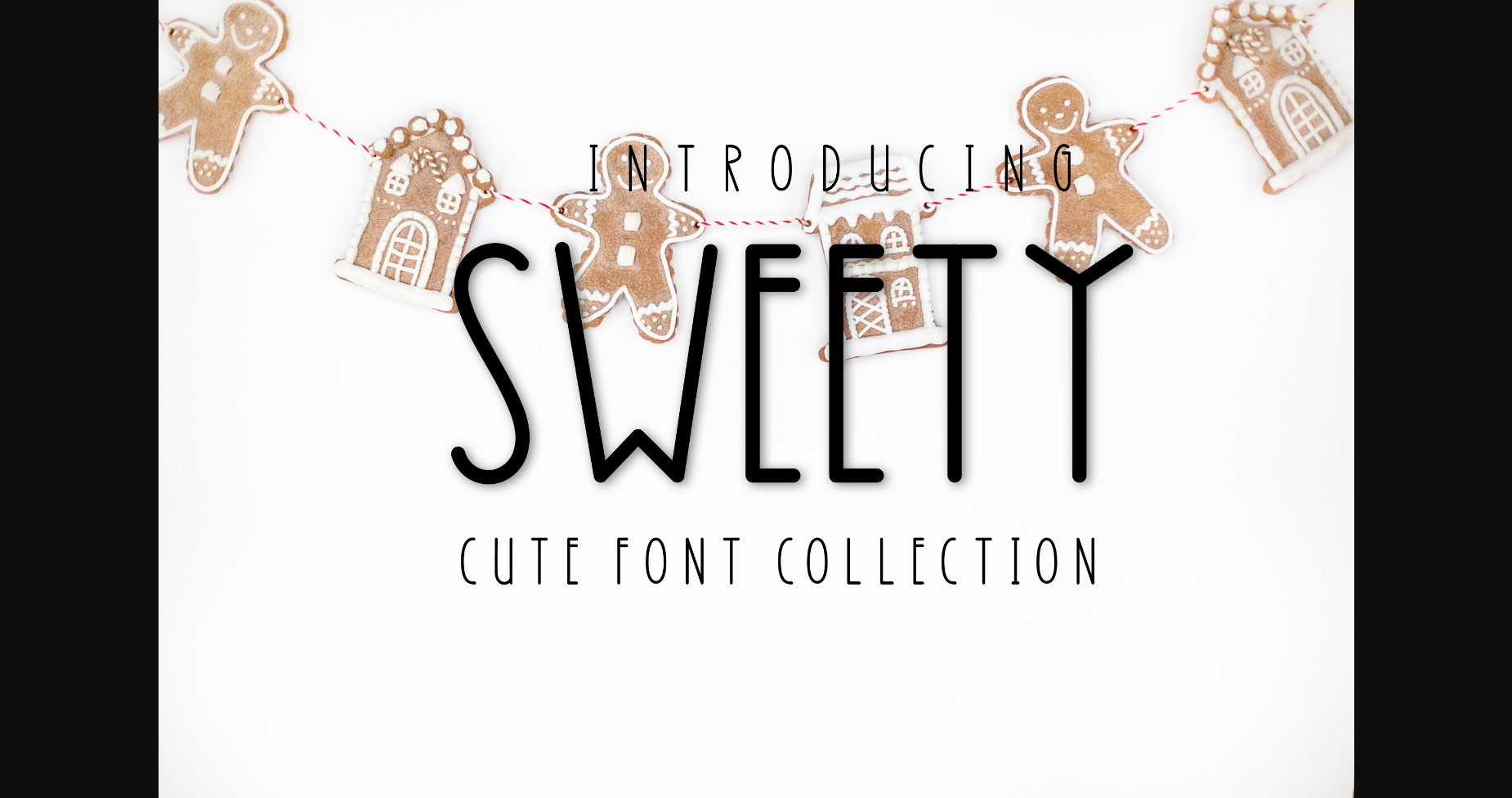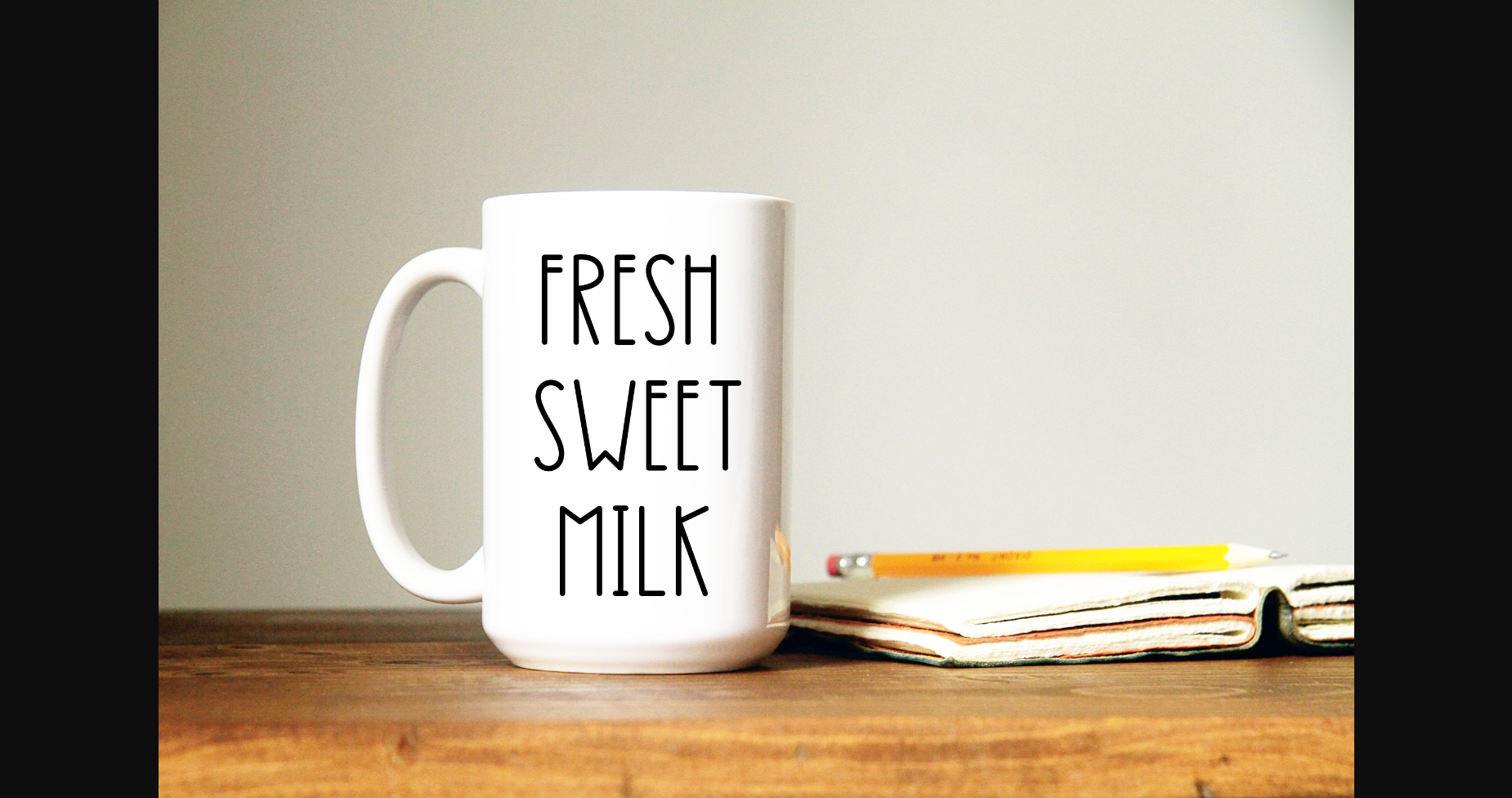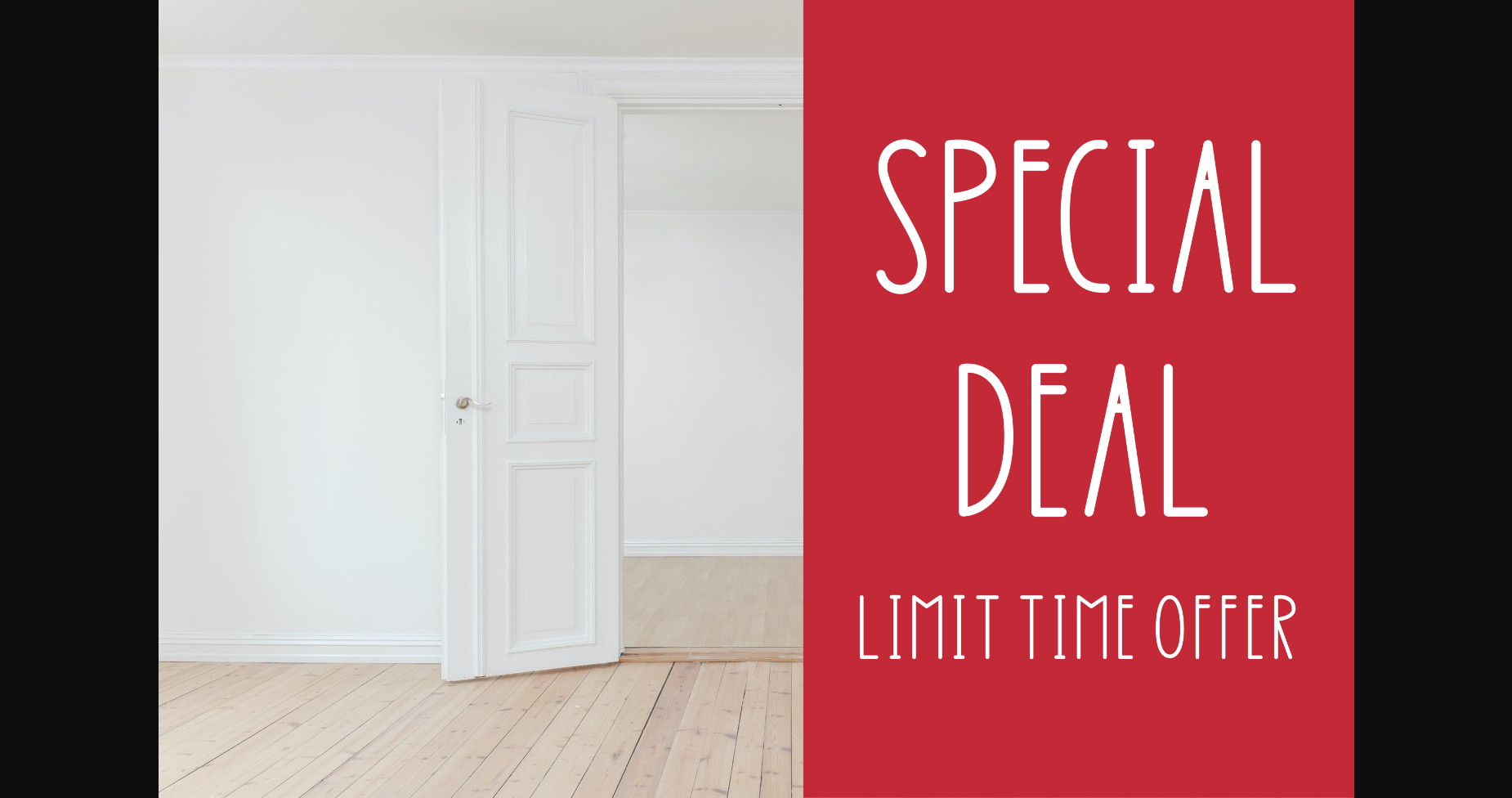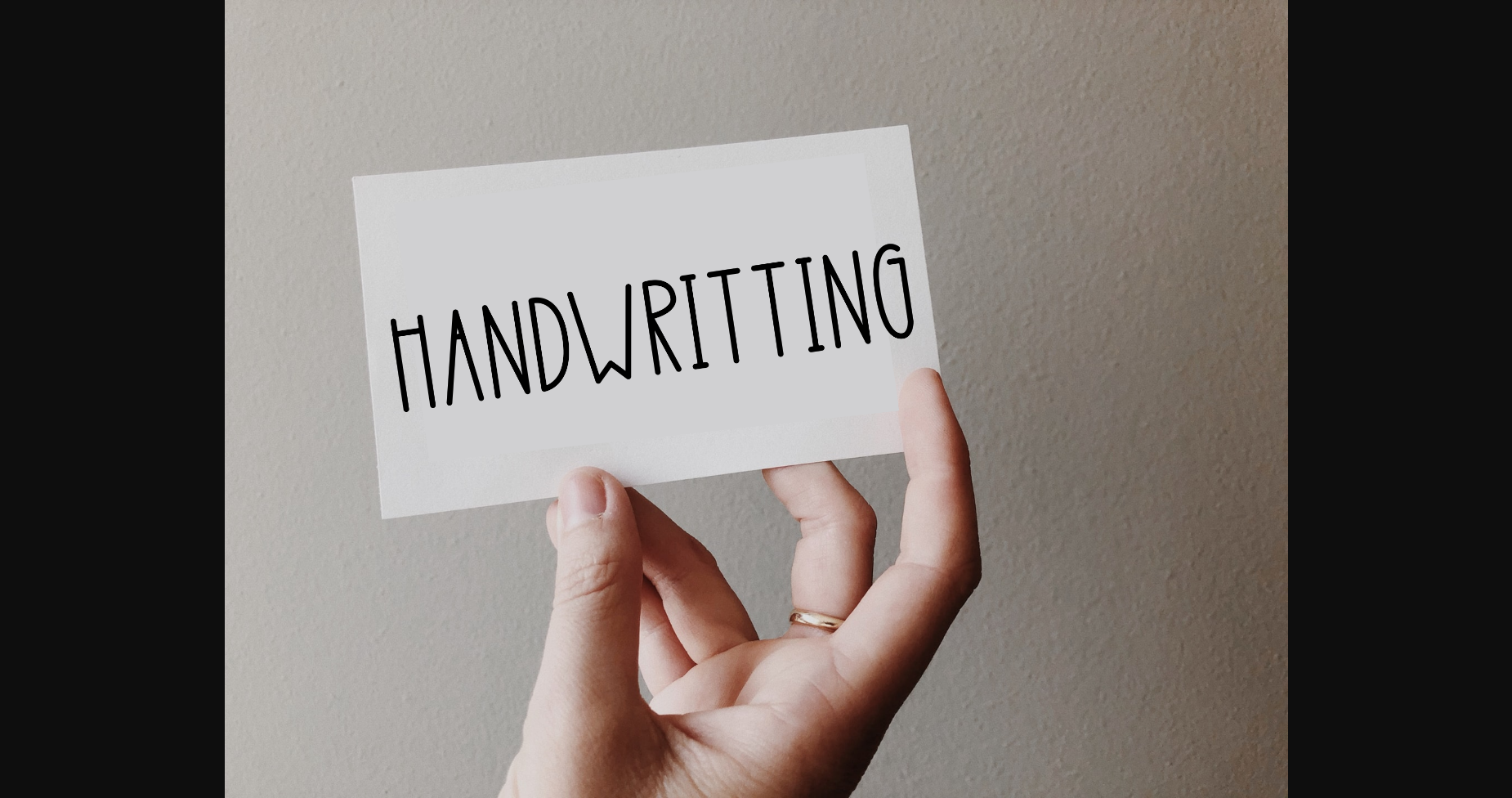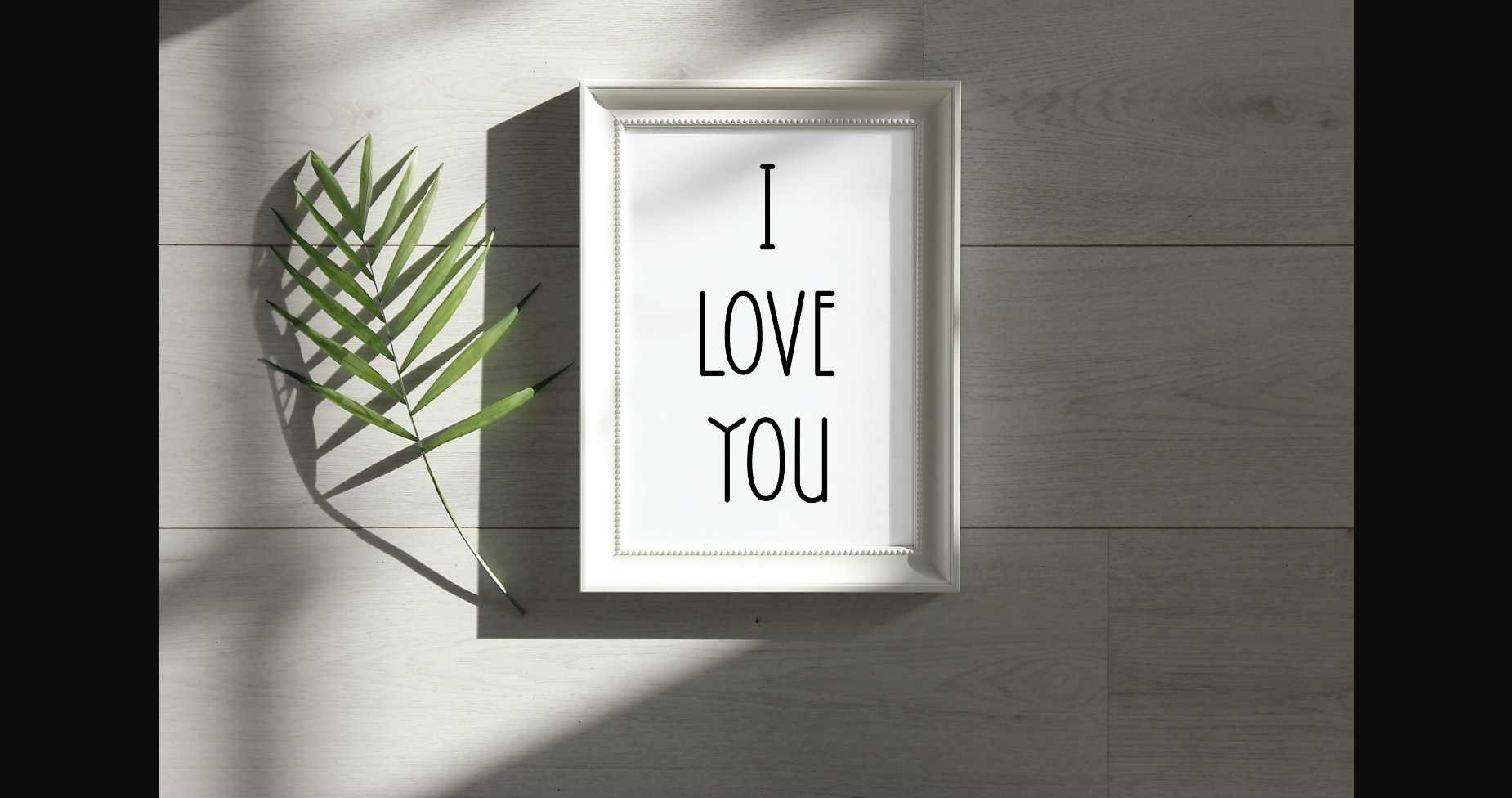
About Sweety Font
Sweety is a minimal and cute sans serif font. It can easily be matched to an incredibly large set of projects, so add it to your creative ideas and notice how it makes them stand out!